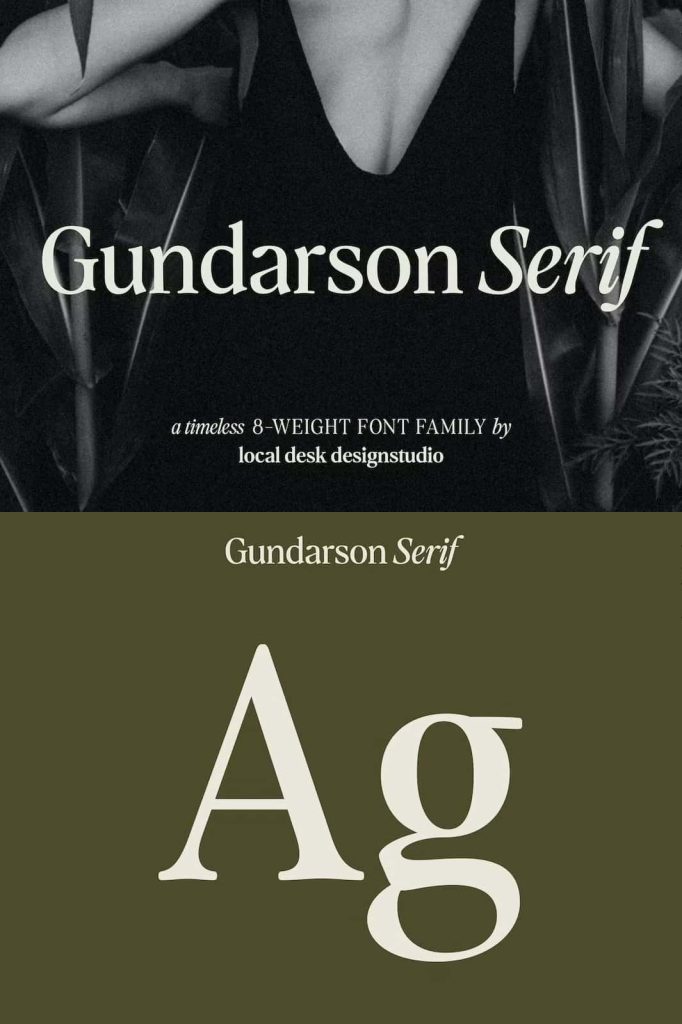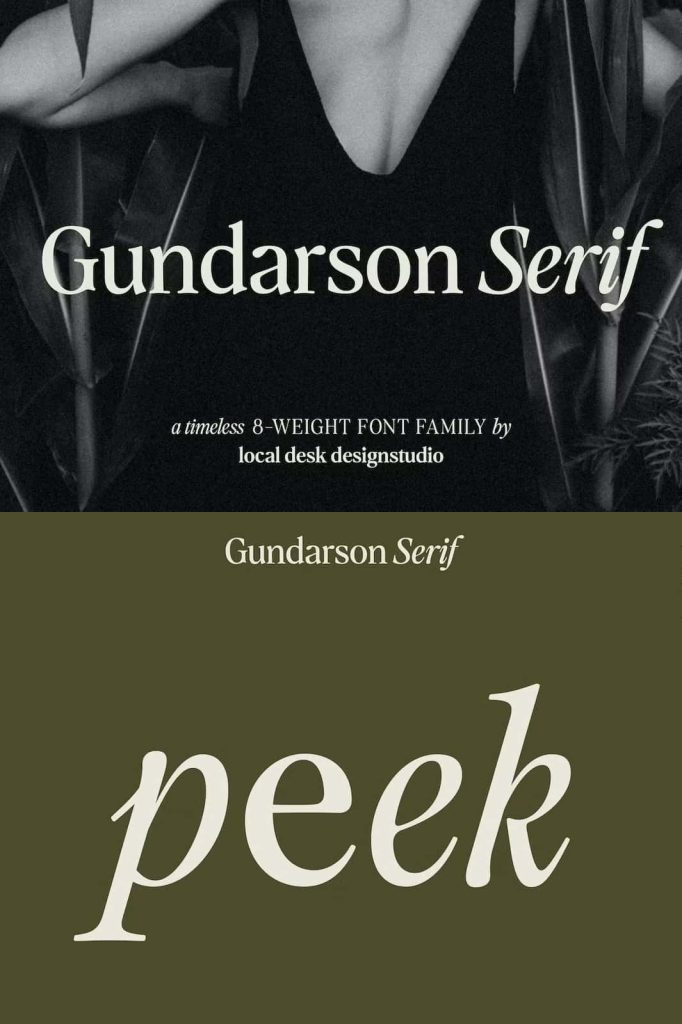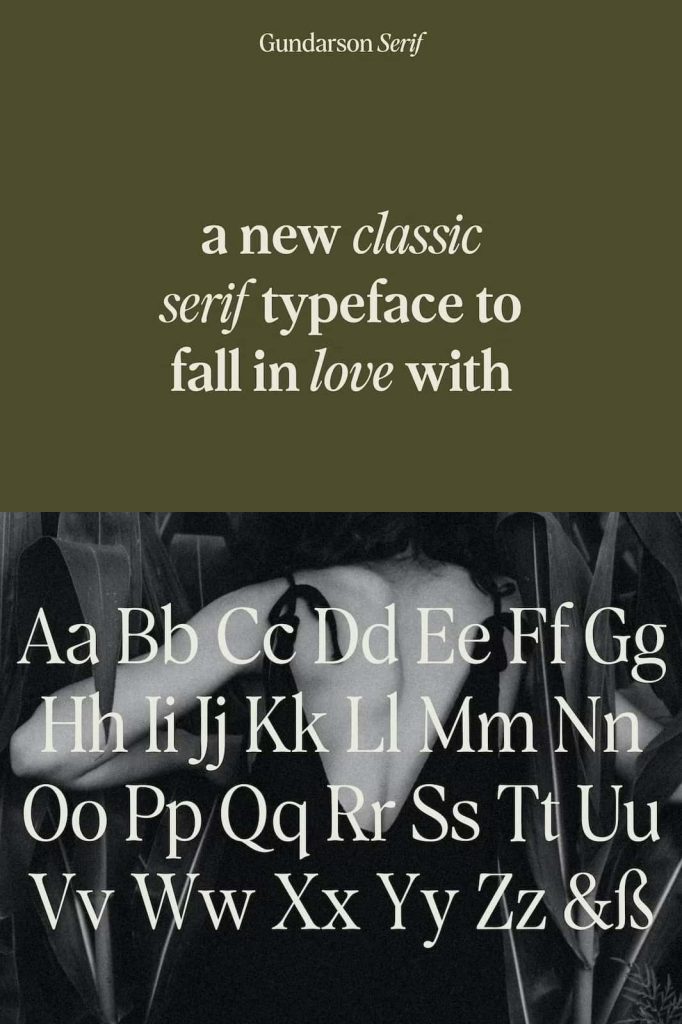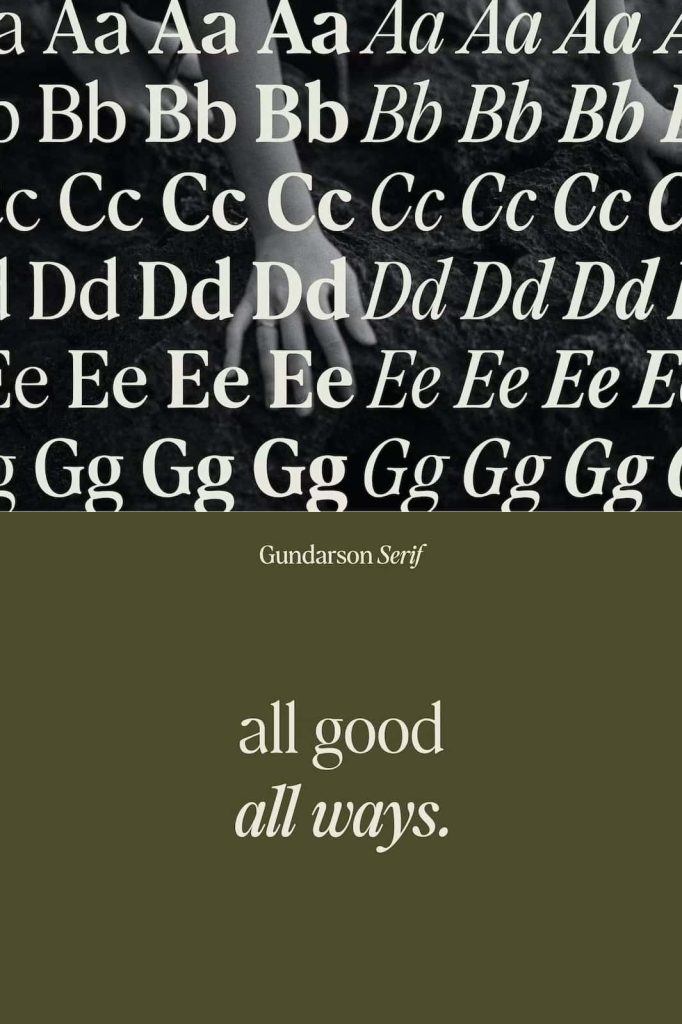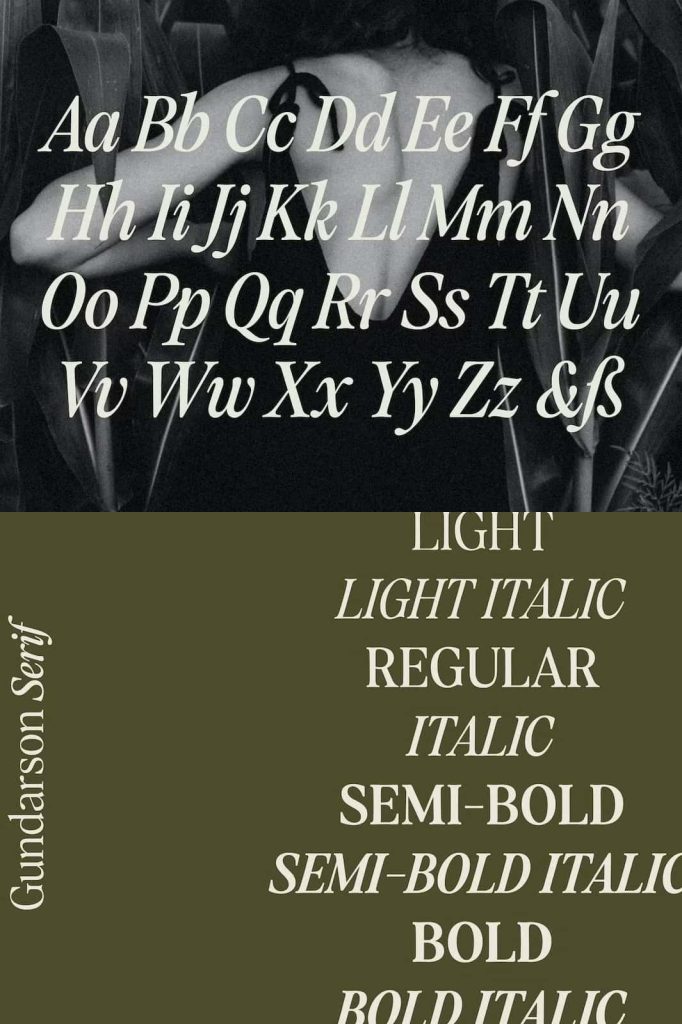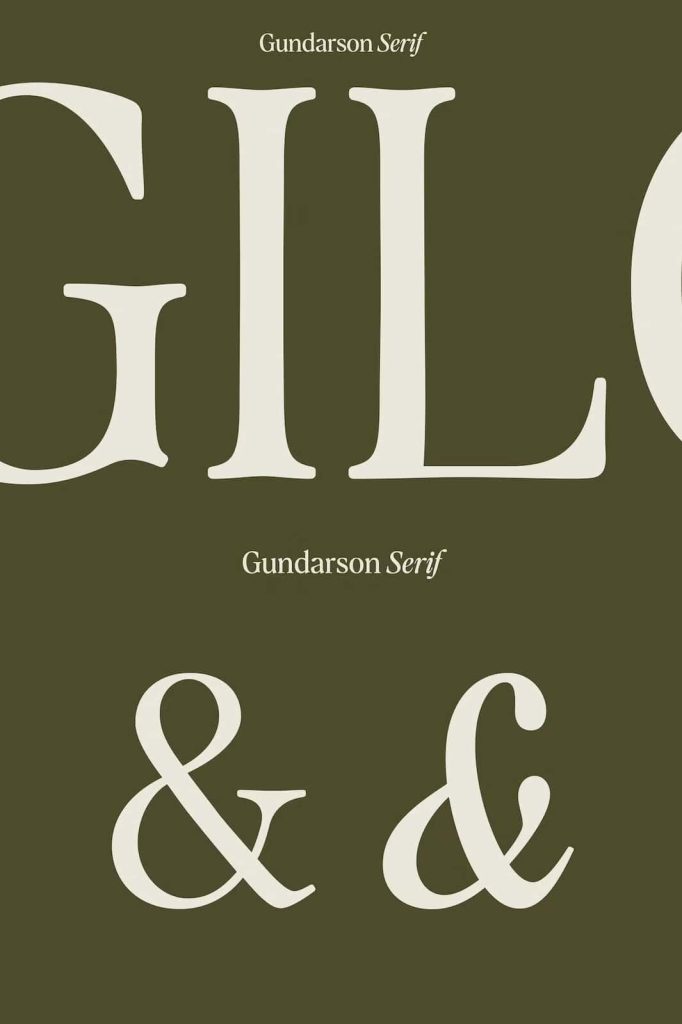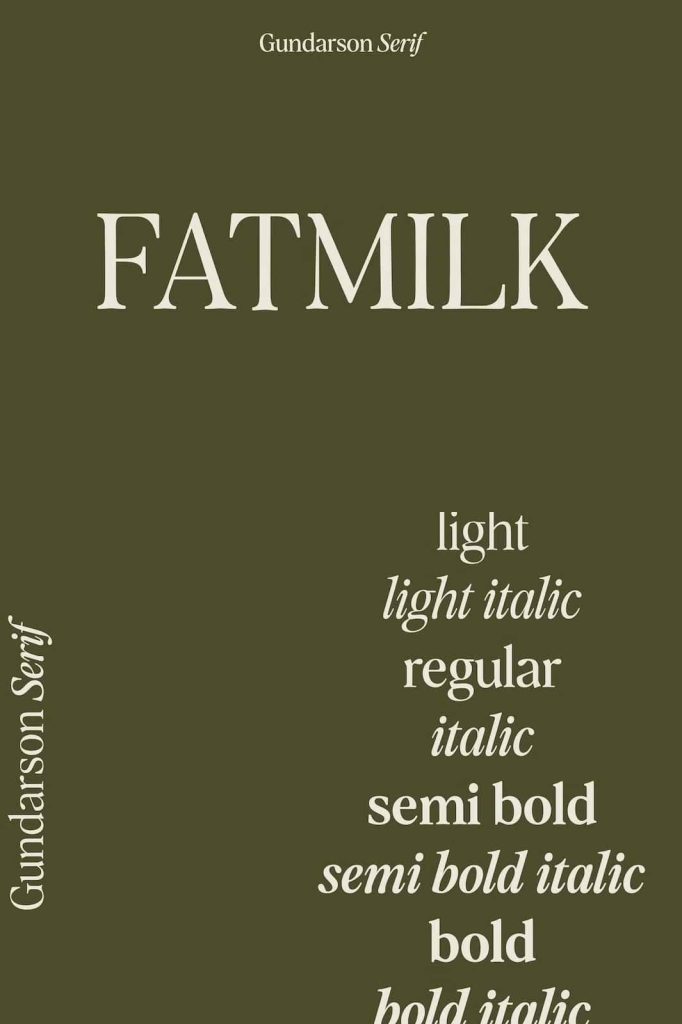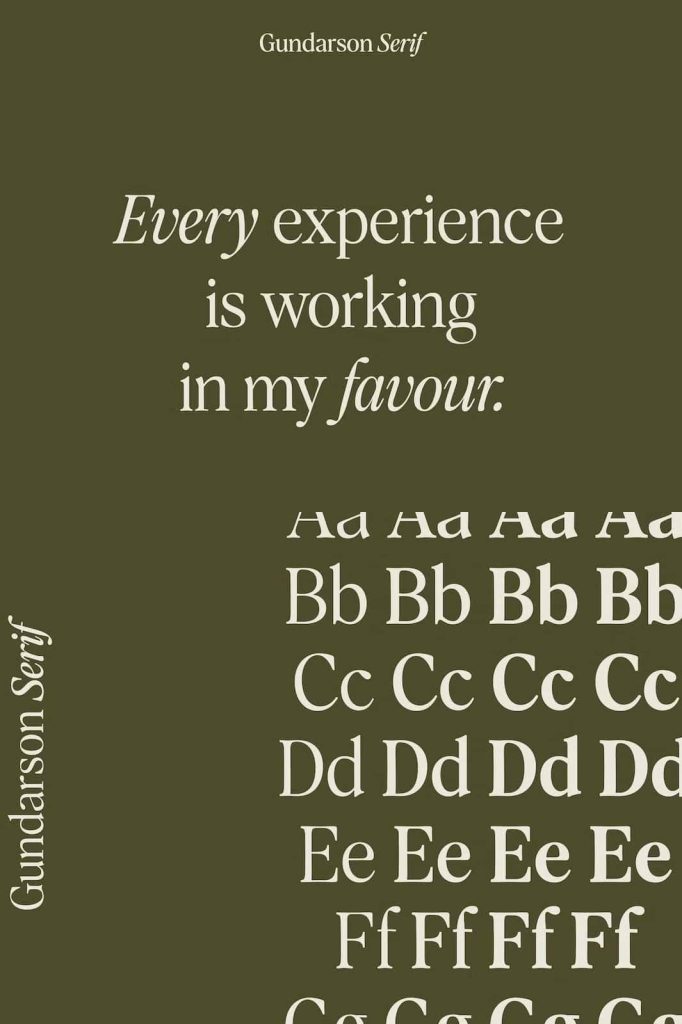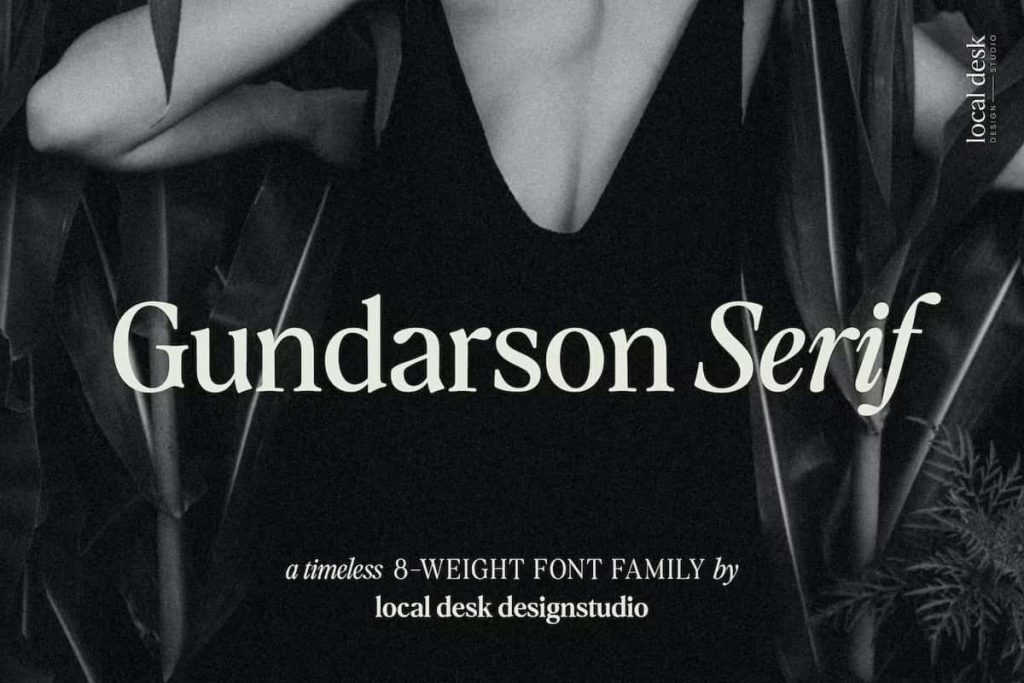
Gundarson Classic Serif Typeface – Elegant Editorial Style Inspired by the Late 1980s
Gundarson Classic Serif Typeface is a sophisticated and beautifully crafted font that draws inspiration from the iconic magazine and editorial typography of the late 1980s. Designed with a strong appreciation for classic publishing aesthetics, this serif typeface captures the elegance, professionalism, and visual charm that defined an era of premium print design. By combining narrow proportions, graceful curves, and carefully refined details, Gundarson delivers a timeless appearance that works exceptionally well in both modern and traditional design environments.
This typeface offers more than just a nostalgic reference to classic editorial layouts. Gundarson transforms vintage inspiration into a highly functional design tool for contemporary creatives. Whether you are developing a luxury brand identity, designing magazine spreads, creating book covers, building website typography, or crafting sophisticated marketing materials, Gundarson provides the versatility and visual impact needed to make your projects stand out.
Inspired by Iconic Late 1980s Editorial Typography
The late 1980s introduced a distinctive approach to typography that emphasized elegance, readability, and efficient use of space. Editorial designers frequently relied on narrower typefaces to create sophisticated layouts while maintaining a strong visual hierarchy. Gundarson embraces these principles and reinterprets them for today’s design needs.
Its carefully balanced letterforms reflect the refinement found in premium magazines, fashion publications, and high-end editorial projects from that era. The result is a typeface that feels classic yet fresh, allowing designers to create layouts that communicate authority, style, and professionalism.
By incorporating the visual characteristics of vintage publishing design, Gundarson helps establish a strong connection between modern creativity and timeless typographic traditions. This balance makes it an excellent choice for projects that require both character and credibility.
Elegant Curves and Soft Terminals
One of the defining characteristics of Gundarson is its elegant curves and soft terminal details. These carefully crafted elements create a warm and inviting personality while preserving the sophistication expected from a premium serif typeface. Every character has been designed with precision to ensure visual harmony throughout the entire font.
The smooth curves introduce a sense of fluidity that enhances readability and creates a pleasant reading experience. Meanwhile, the soft terminals add subtle friendliness to the design, making the font approachable without sacrificing its professional appearance. This unique combination allows Gundarson to communicate confidence, elegance, and warmth simultaneously.
Designers looking for a serif font that balances classic authority with modern charm will appreciate the distinctive personality that Gundarson brings to every project.
Unique Features That Add Character
Gundarson stands apart from conventional serif fonts through its bespoke character shapes and distinctive typographic details. Rather than relying on standard serif structures, this typeface introduces carefully designed features that create a memorable visual identity. These unique elements help transform ordinary text into expressive typography that captures attention and reinforces brand recognition.
The font’s customized forms contribute to its peculiar and recognizable feel, allowing designers to create work that feels exclusive and thoughtfully crafted. Whether used in headlines, logos, editorial titles, or promotional materials, Gundarson adds personality and sophistication to every composition.
Refined Letterforms
Each letter has been carefully developed to achieve balance, elegance, and consistency. The refined construction ensures that text appears polished and professional across a variety of design applications.
Distinctive Character Shapes
Unique character details provide visual interest and help establish a memorable typographic presence. These subtle differences create a stronger identity compared to generic serif fonts.
Professional Readability
Despite its decorative qualities, Gundarson maintains excellent readability. The font performs exceptionally well in both large display settings and longer editorial content.
Ideal for Editorial, Branding, and Publishing Projects
Gundarson offers exceptional flexibility across numerous creative disciplines. Its elegant design language makes it suitable for a wide range of professional applications where sophistication and readability are essential.
- Magazine and editorial design
- Luxury brand identities
- Book covers and publishing projects
- Fashion branding and marketing
- Corporate presentations
- Premium packaging design
- Website typography and digital publications
- Advertising campaigns
- Creative portfolios
Choose Gundarson when you want a typeface that combines timeless editorial charm with modern design versatility. Its refined appearance and unique typographic voice make it a valuable addition to any designer’s font collection.